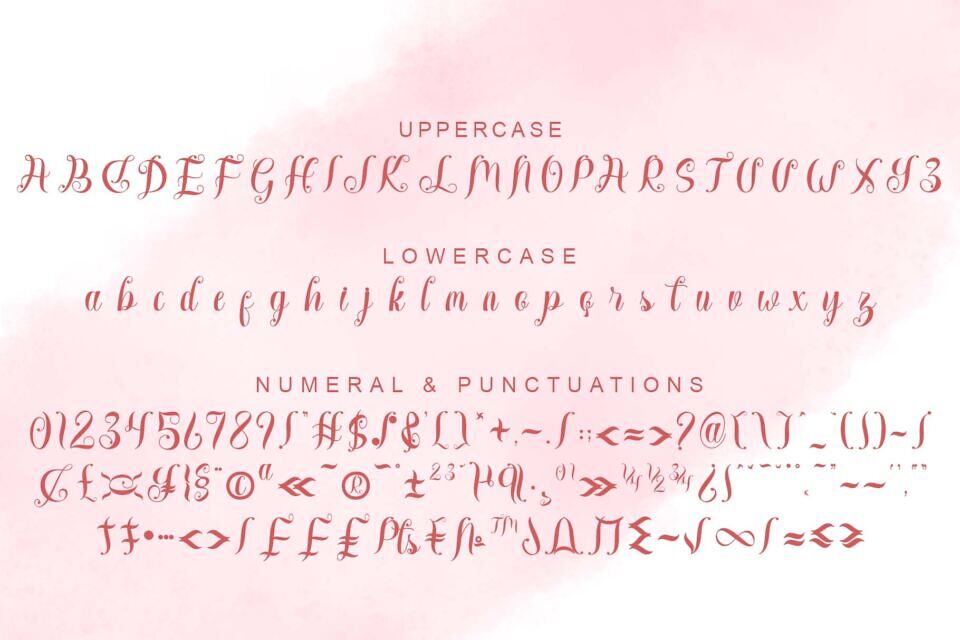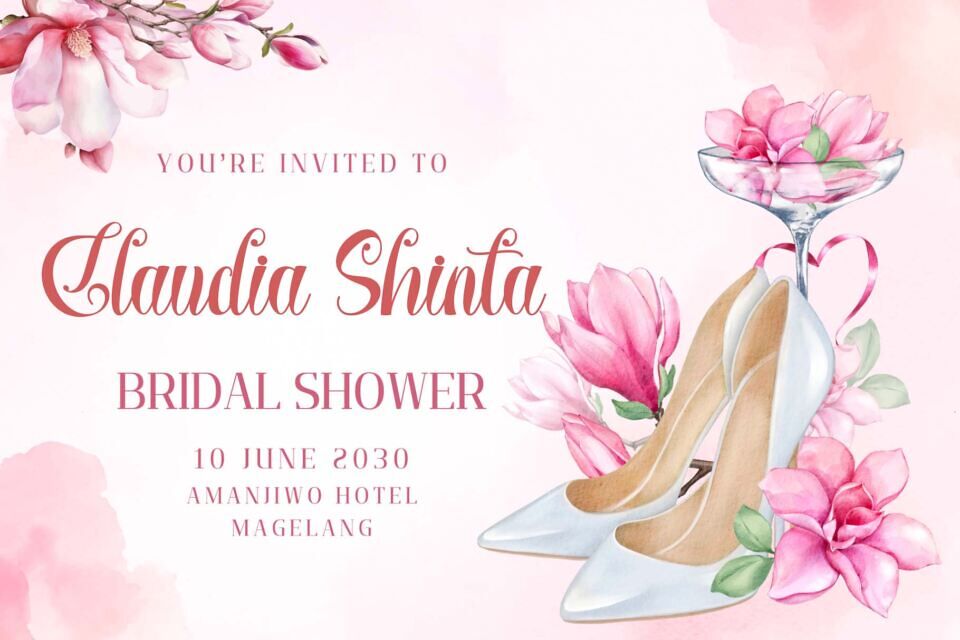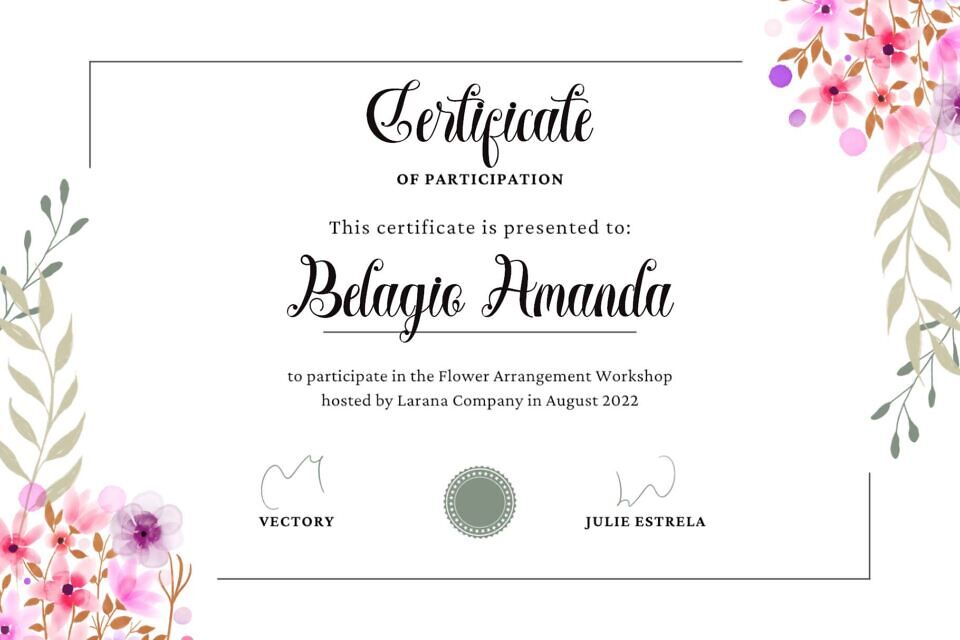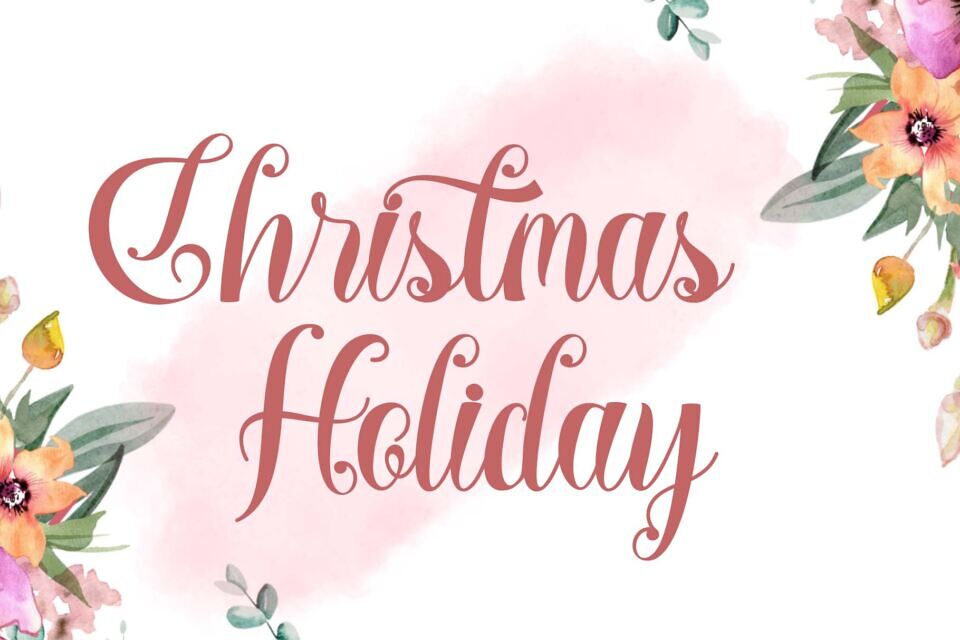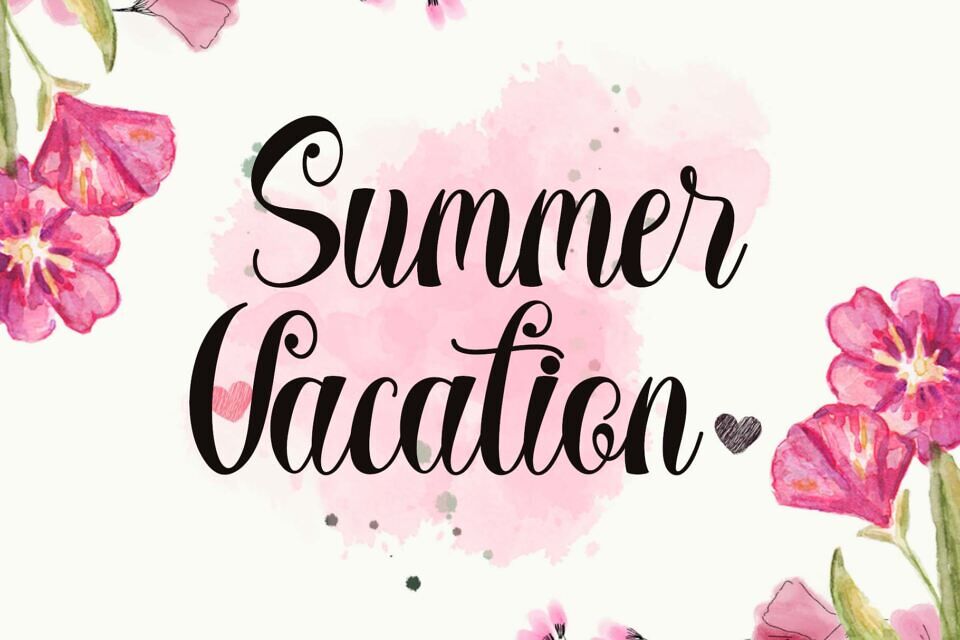
Athena Wedding Font
Athena Wedding is an elegant, beautiful and professional handwritten font. This font is equipped with uppercase, lowercase, numerals, punctuations, ligatures and multilingual support.
It is very suitable for weddings, invitations, summer, photography, certificates, birthdays, valentines, christmas, business branding, mother’s day, father’s day and others.